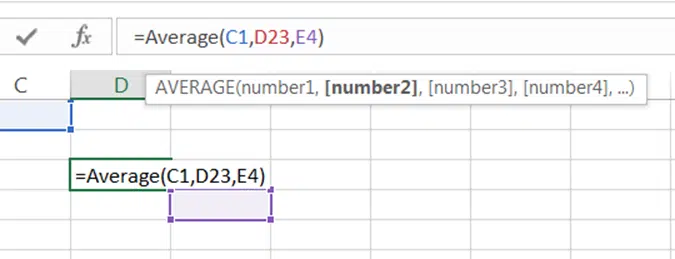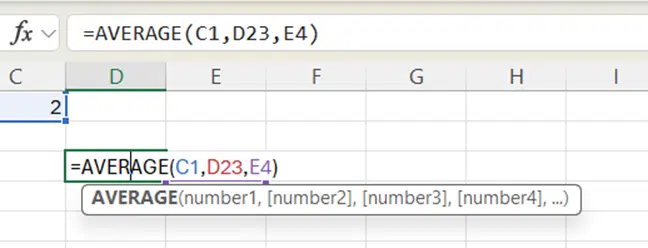
Monospace font makes a difference to Excel formulas
Excel 365 for Windows and web have a different font for the formula bar. The monospace font should be easier to read and understand.
For as long as there’s been Excel, formulas have been shown in a proportional font. Probably to fit as much text into the available screen space. Now screens are larger and have better resolution, it makes sense to use a monospace font instead.
A fixed or monospace font uses the same amount of horizontal space for each character. That makes it easier to see little details in a formula like a fullstop/period instead of a comma.
Here’s a simple formula in Excel 2016.
And the same formula in Excel 365.
Microsoft’s example is more complicated but makes the same point.
The formula bar font appears to be Consolas.